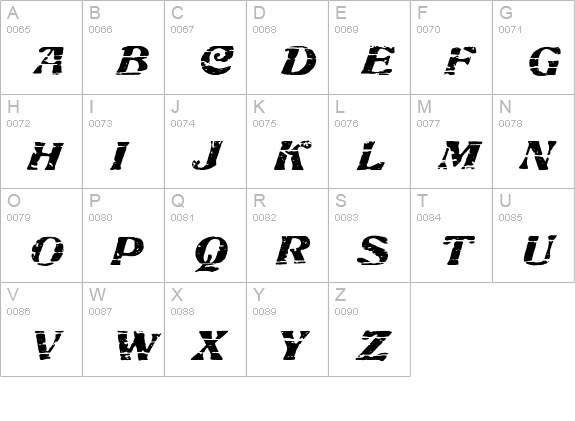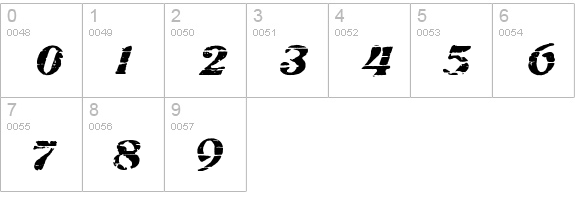
Charbroiled Font Details
Charbroiled font is a bold and distinctive typeface that adds a touch of grilled goodness to your design projects. With its rugged edges and fiery attitude, this font exudes a sense of outdoor cooking and smoky flavors. Charbroiled is perfect for a variety of uses, from barbecue restaurant menus to summer event posters. The best part? Charbroiled font is completely free to download at FontsMarket.com. So fire up your creativity and give your designs a sizzling touch with this unique and flavorful font.